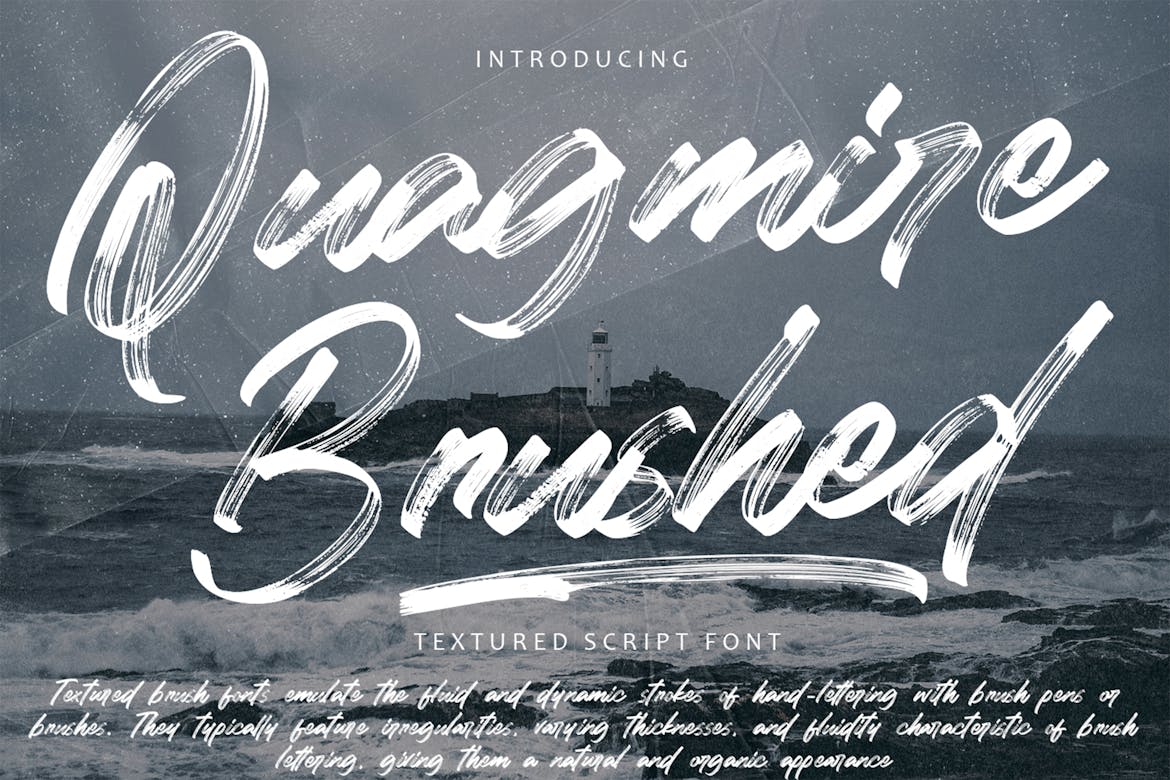
Quagmire Brushed Font
Quagmire Brushed Font is ideal for artistic branding projects, hand-lettered logo design, creative poster art, expressive social media graphics, artisanal packaging design, craft brewery branding, bohemian wedding invitations, artistic book covers, and authentic handmade typography applications.
What makes Quagmire Brushed Font exciting is its captivating organic flow that perfectly captures the spontaneous energy and natural movement of real brush lettering. This dynamic typeface features authentic paint textures, flowing strokes, and expressive letterforms that bring warmth and personality to digital designs. The font's imperfect beauty creates emotional connection and human touch that modern audiences crave, making it perfect for brands that want to communicate authenticity, creativity, and artisanal craftsmanship rather than cold corporate precision.
Quagmire Brushed Font family includes multiple artistic variations: Regular, Bold, Light, Condensed, Extended, and Rough versions. Each style maintains the distinctive brushed aesthetic while offering different stroke weights and texture intensities, providing designers with versatile tools for creating cohesive yet expressive typographic systems and authentic hand-crafted design applications.
The Quagmire Brushed Font Free Download delivers professional brush lettering that eliminates the need for custom hand-lettering while maintaining authentic artistic appeal. This font excels in creative industries, artisanal brands, lifestyle companies, and cultural projects where genuine artistic expression enhances brand personality and emotional connection. The natural brush variations create visual interest and organic rhythm.
Creative professionals choose Quagmire Brushed Font for its ability to convey creativity and human touch through typography alone. The varied brush strokes and organic flow create natural movement that draws viewers into the message. Its expressive character works beautifully across diverse applications from intimate product labels to large-scale environmental graphics.
The comprehensive character set includes artistic flourishes, decorative elements, and extensive multilingual support that enhances the handcrafted aesthetic. Quagmire Brushed Font Free Download enables designers to experiment with color techniques, layering effects, and creative brush applications before purchasing.
Whether used for artisanal product branding or contemporary creative campaigns, Quagmire Brushed Font consistently delivers authentic brush typography that resonates with audiences seeking genuine artistic expression and human-centered design experiences.